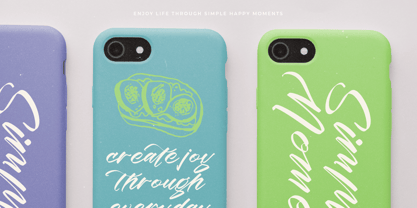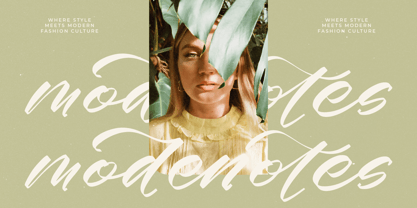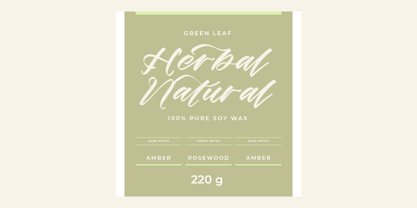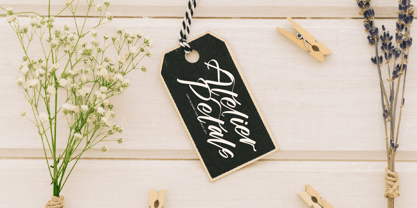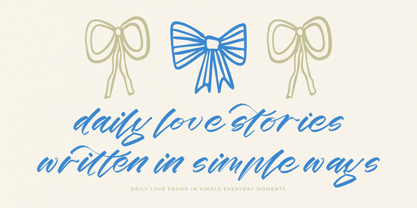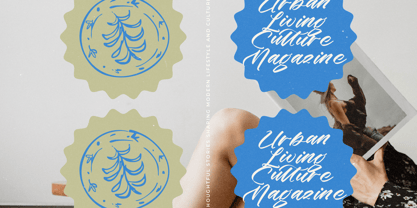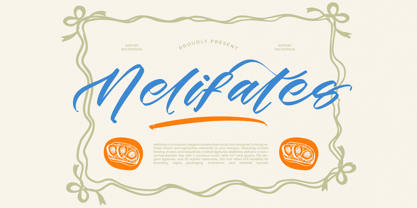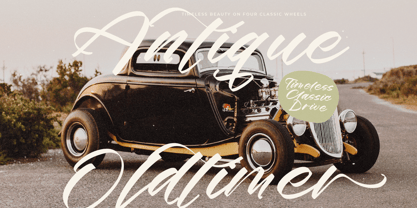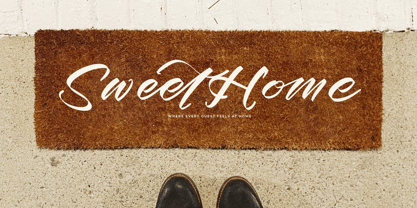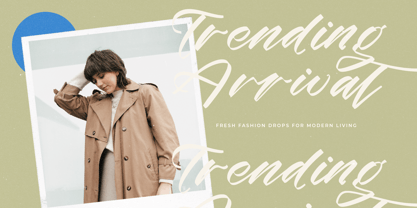
Melifates
by Stylishtype Studio
The Melifates Font Family was designed by Heru Utama Putra and published by Stylishtype Studio. Melifates contains 2 styles and family package options.
Melifates is a refined handwritten script font crafted to bring expressive movement, smooth brush textures, and elevated charm into your designs. Featuring fluid strokes, elegant swashes, and beautifully balanced curves, Melifates delivers a natural handwritten feel with a modern luxury touch. Equipped with 527 glyphs, 160 stylistic alternates, and 35 handcrafted ligatures, this font offers exceptional versatility for branding, packaging, editorial layouts, wedding invitations, and logo design-complete with multilingual support for global use.